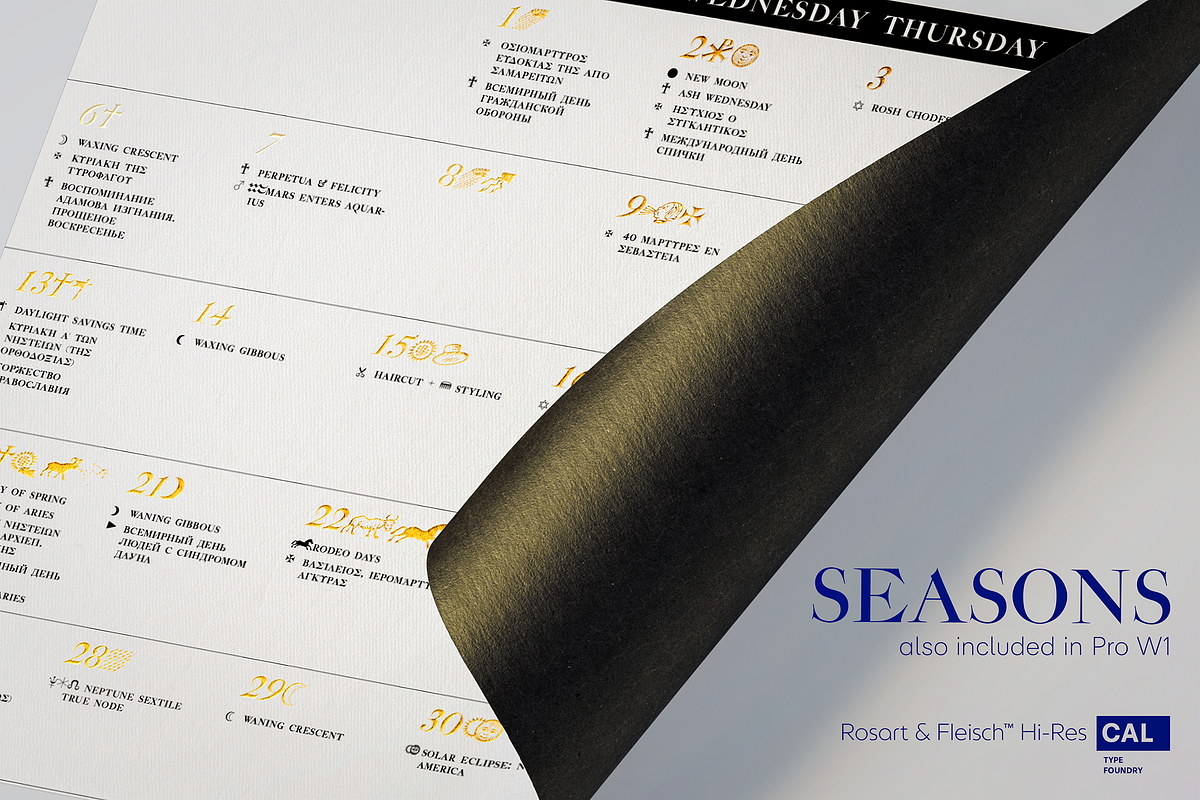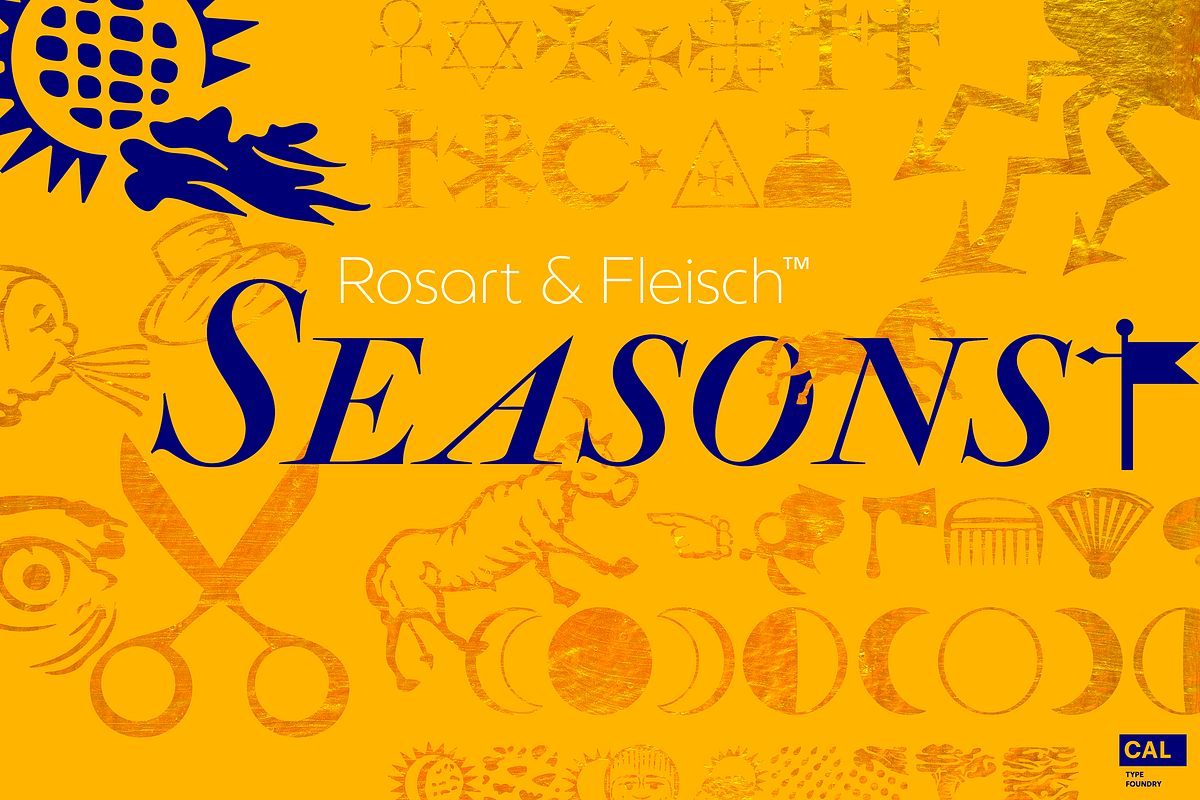
Rosart & Fleisch SEASONS Symbol Set
Seasons - Symbols to Keep Things Organized Throughout the Year
part of the Rosart & Fleisch™ Hi Res Series
- Classic weather stylings, including old fashioned lightning and an eclipsing moon with the four-o'clock shadow.
- Map Markers
- Religious Symbols
- Phases of the moon.
- Pointing symbols: fingers, arrows, triangles, with circles
- Over 100 symbols included!
The original icons Jacque François Rosart painstakingly carved, now meticulously digitized to be a true, accurate, and complete representation of the original designs. Sourced from high resolution pictures and scans of the Enschede 1768 specimen, specimens of the 1800s, the 1908 and 1978 metal re-castings.